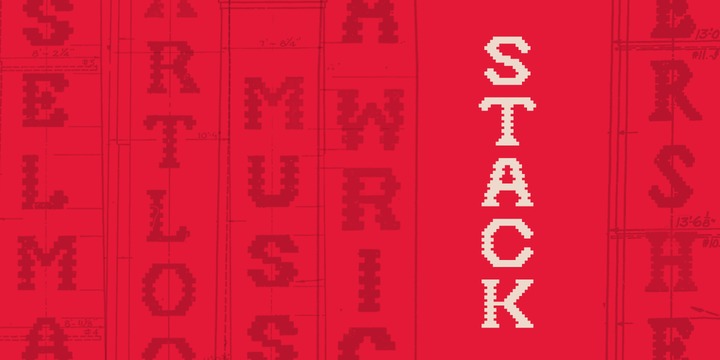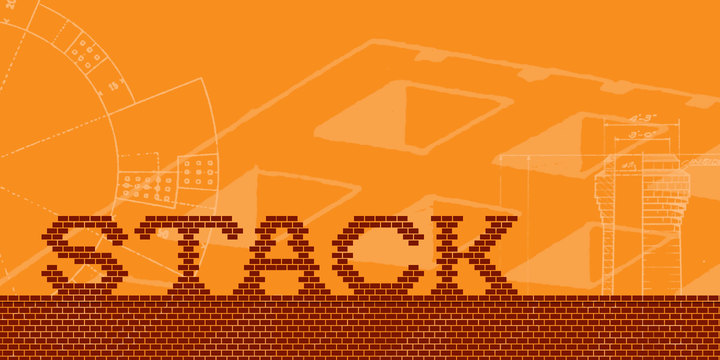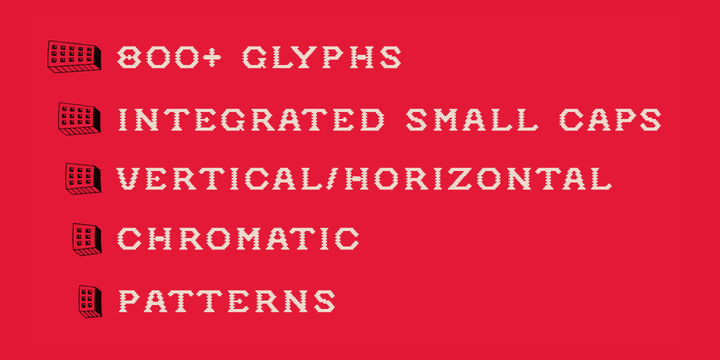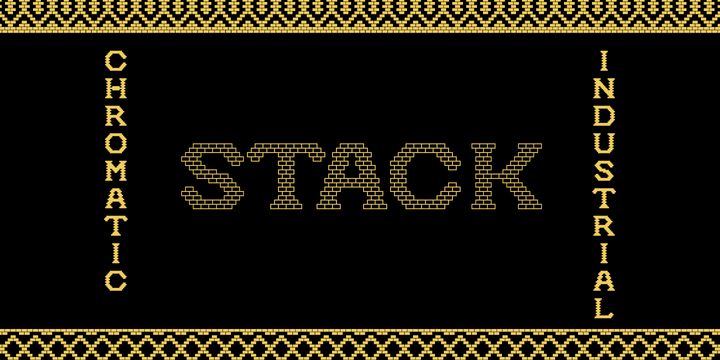
Stack brings the spirit of industrial chimney lettering from the early twentieth century to the digital age.
The typeface is designed to work both horizontally and vertically. Additionally, the fonts can work together in myriad chromatic expressionsproviding limitless design possibilities.
The family is true to the spirit of masonry lettering without being a direct lift of any specific lettering style from the industrial age.
Like some of its masonry predecessors Stack is built as a typeface of 15 courses (horizontal rows) of bricks.
More Based on several years of research a collection of 150+ photographs and roughly two dozen archival engineering drawings were amassed.
The value of the historical references is a type family that is a legitimate reflection of masonry lettering styles of the period.
In updating Stack for the digital age, the proportions of the base-unit bricks and the thickness of mortar joints have been optically adjusted to work in both screen-based and print media.